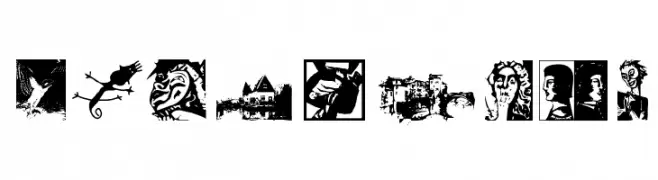
Cartoonish, character-based decorative font with playful illustrations.
An illustrative, image-based decorative font with unique scenes for each character.